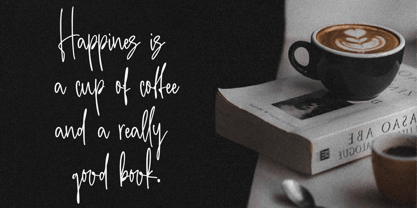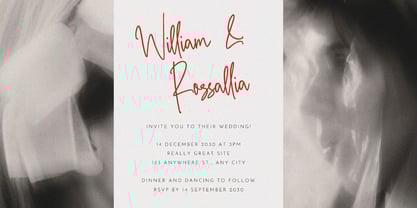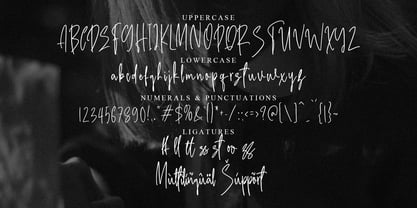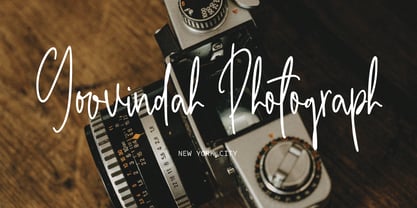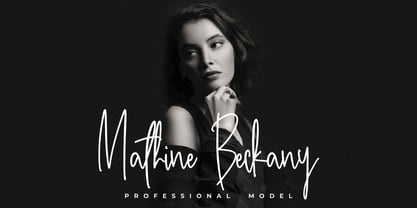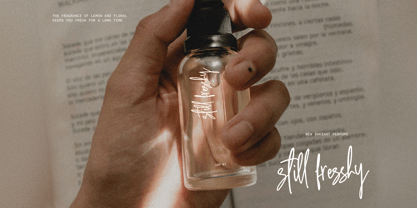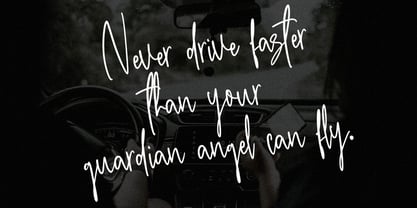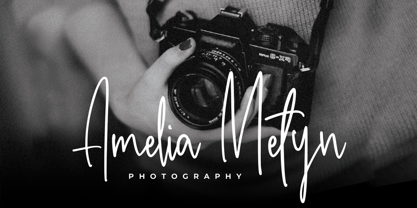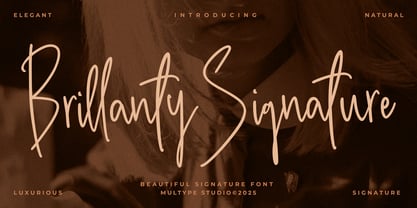
Brillanty Signature
by Multype Studio
The Brillanty Signature Font Family was designed by Mulia Yanto and published by Multype Studio. Brillanty Signature contains 1 styles. More about this family
Brillanty Signature is an elegant and natural handwritten script font with a luxurious signature style. Designed to bring a personal and sophisticated touch, this font is perfect for branding projects, wedding invitations, photography logos, beauty products, and stylish magazine titles. With its smooth strokes and authentic handwriting feel, Brillanty Signature adds charm and professionalism to every design. Make your signature brand stand out beautifully with Brillanty Signature Font — the perfect blend of elegance and modern calligraphy. What’s Included : Uppercase & Lowercase, Ligature, Numbers & Symbols, Works on PC / Mac, Simple installations, Accessible in the (Adobe Illustrator, Adobe Photoshop, Adobe InDesign, even work on Microsoft Word). PUA Encoded Characters, Fully accessible without additional design software, Multilingual support.
Designers: Mulia Yanto
Foundry: Multype Studio